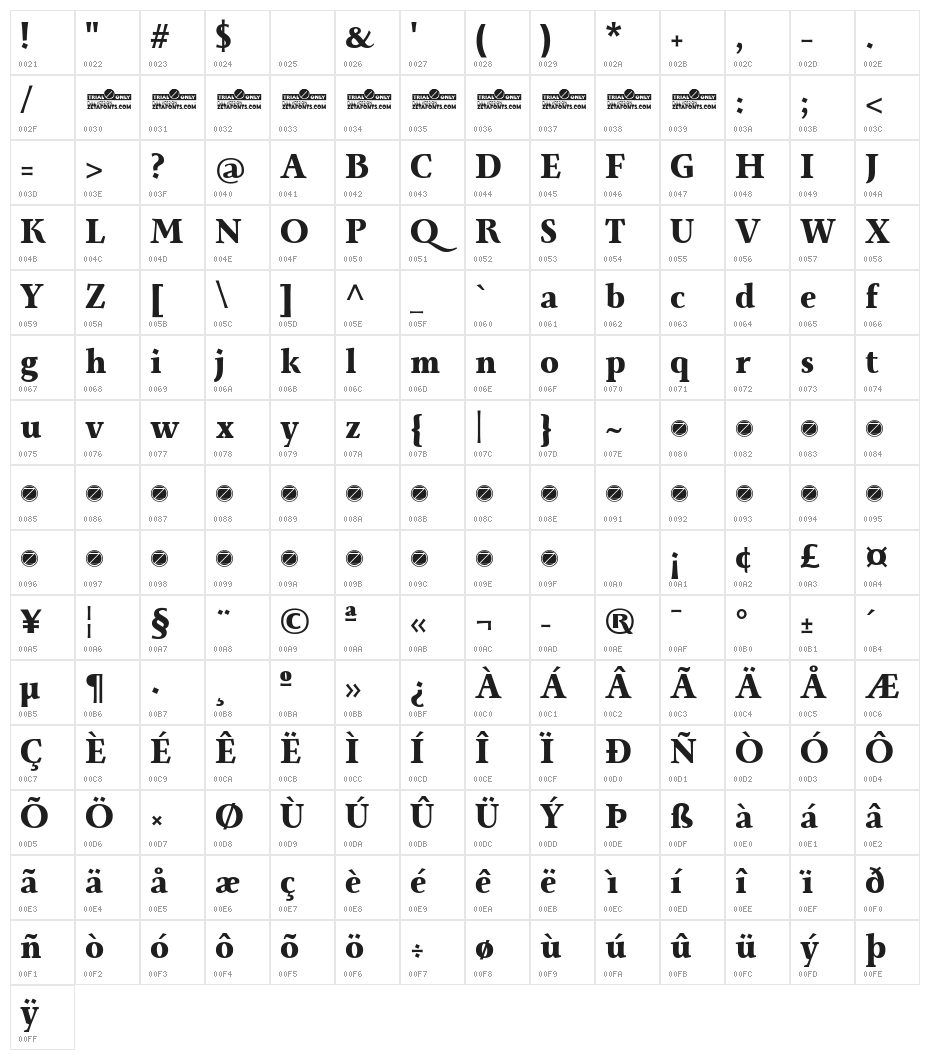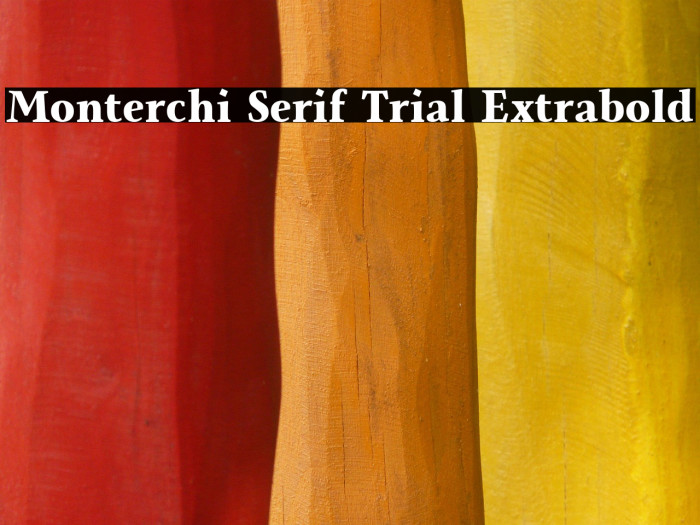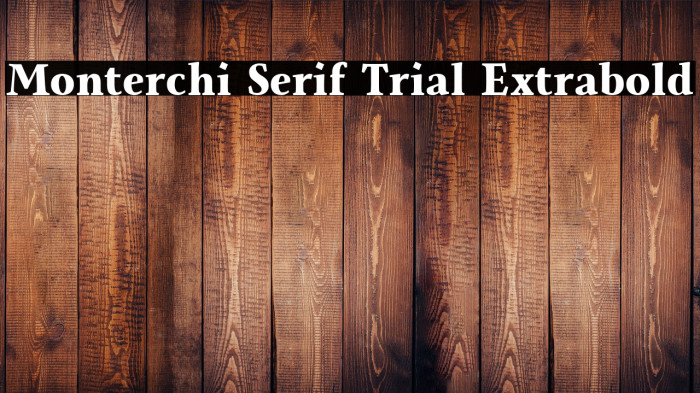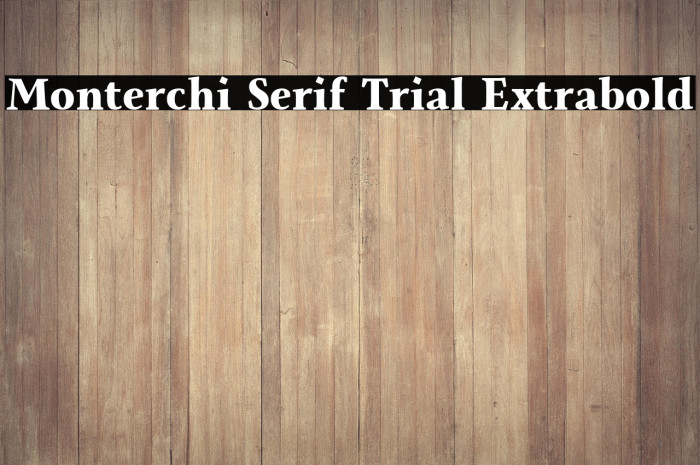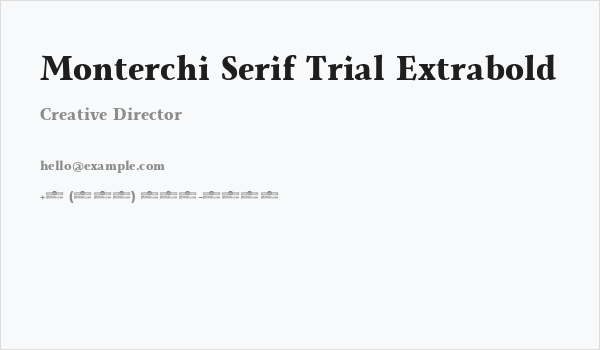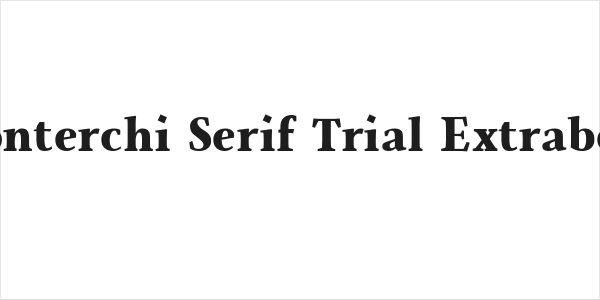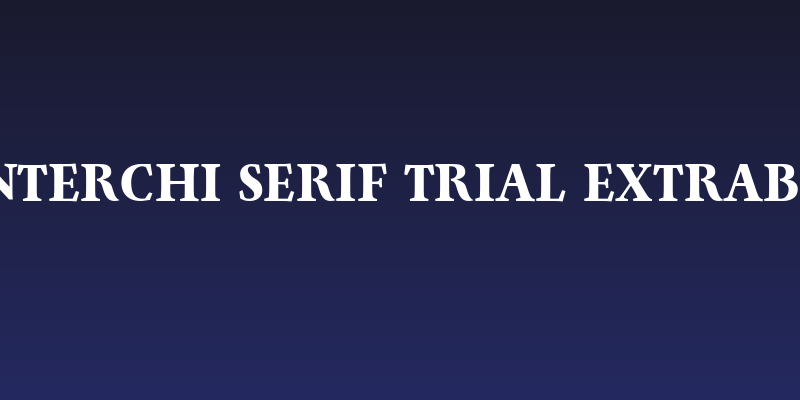
Monterchi Serif Trial Extrabold Font
Monterchi Serif Trial Extrabold Description
This typeface features a bold and commanding presence with its thick, strong strokes and pronounced serifs. The uppercase letters exhibit a classic elegance, while the lowercase characters maintain a consistent weight that complements the overall boldness. The font's design is both traditional and robust, making it suitable for impactful headlines and titles. Its serifs are sharply defined, adding a touch of sophistication and authority. The numerals and special characters are crafted with the same attention to detail, ensuring uniformity across all glyphs.